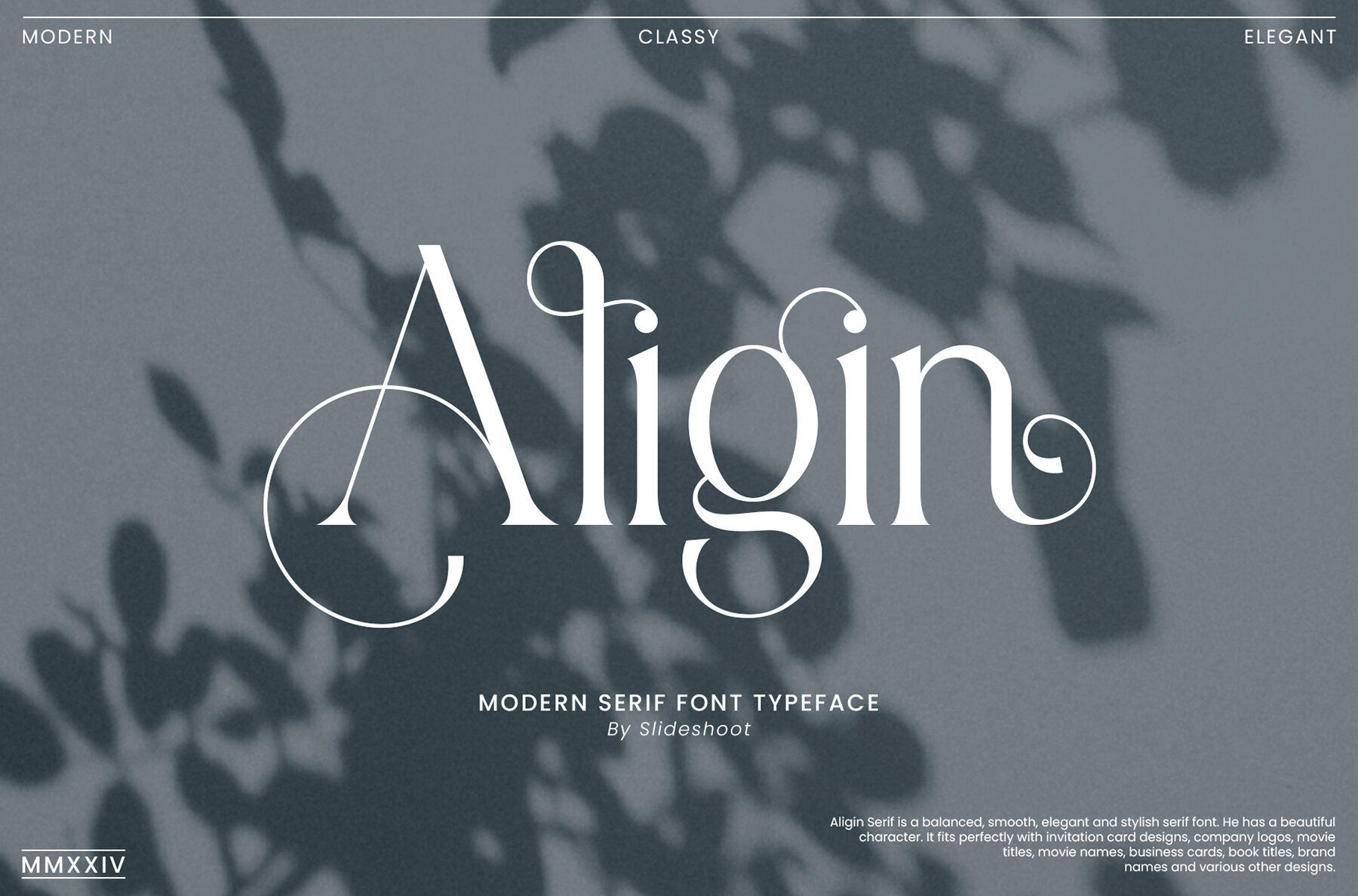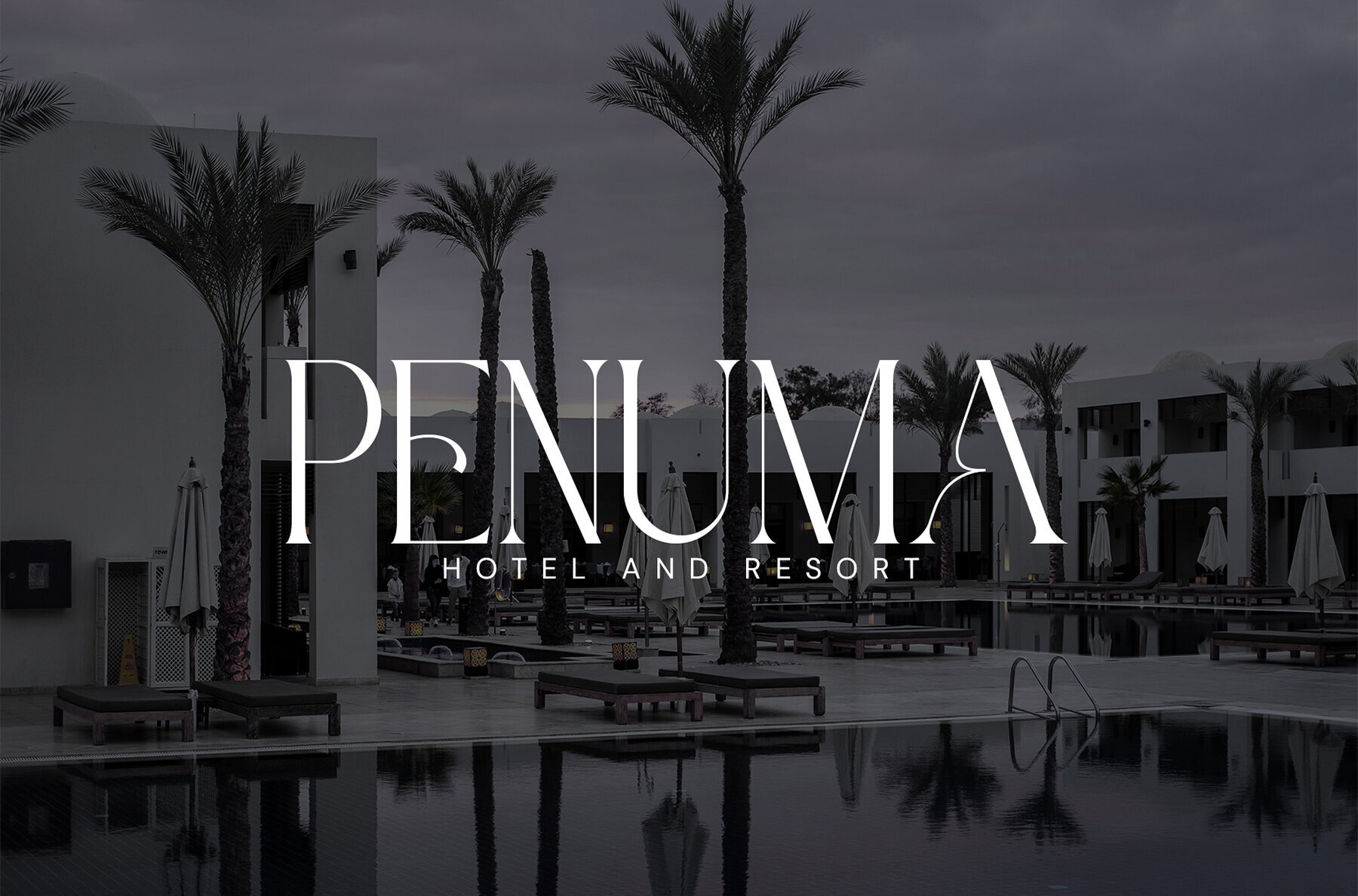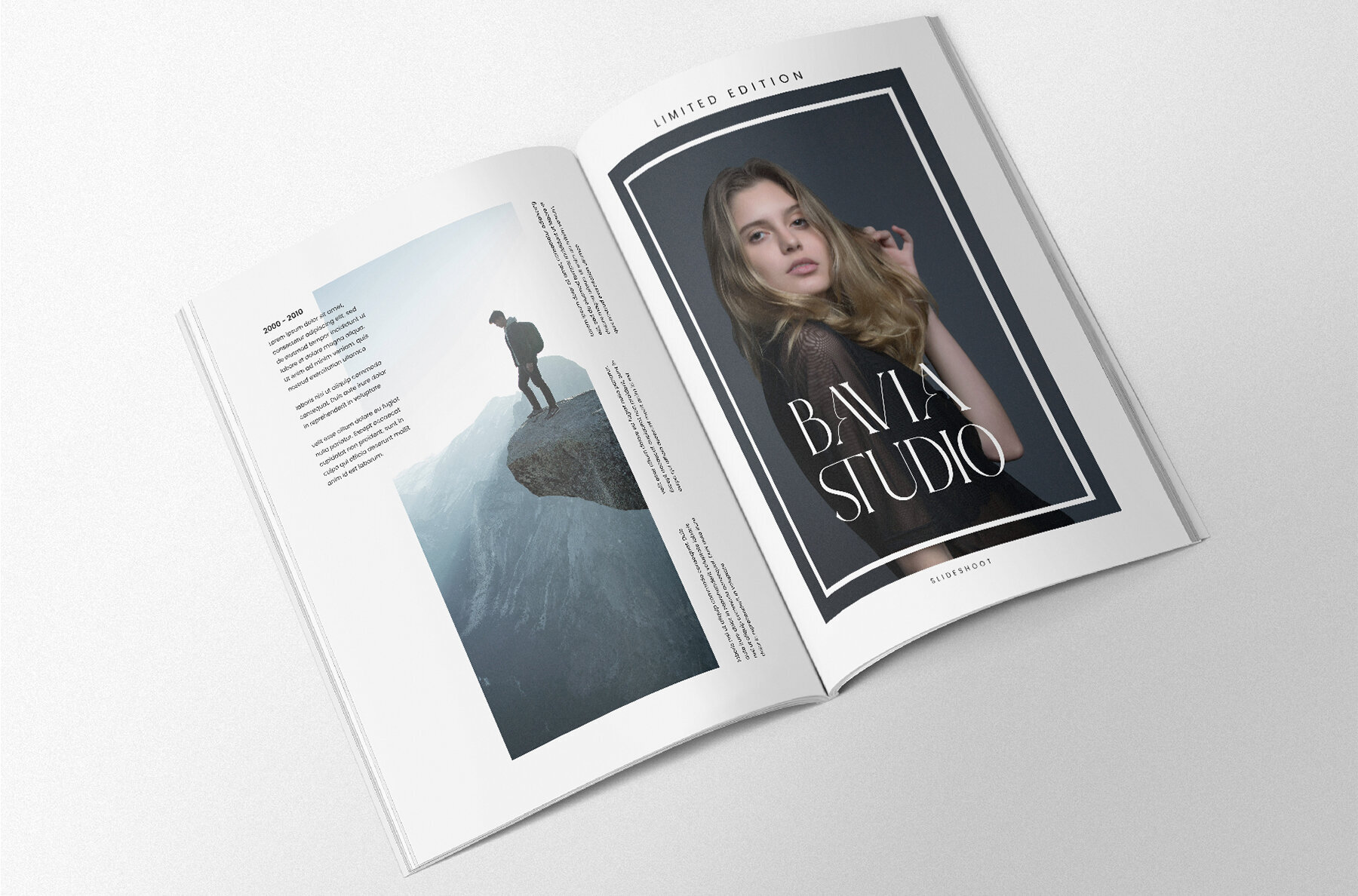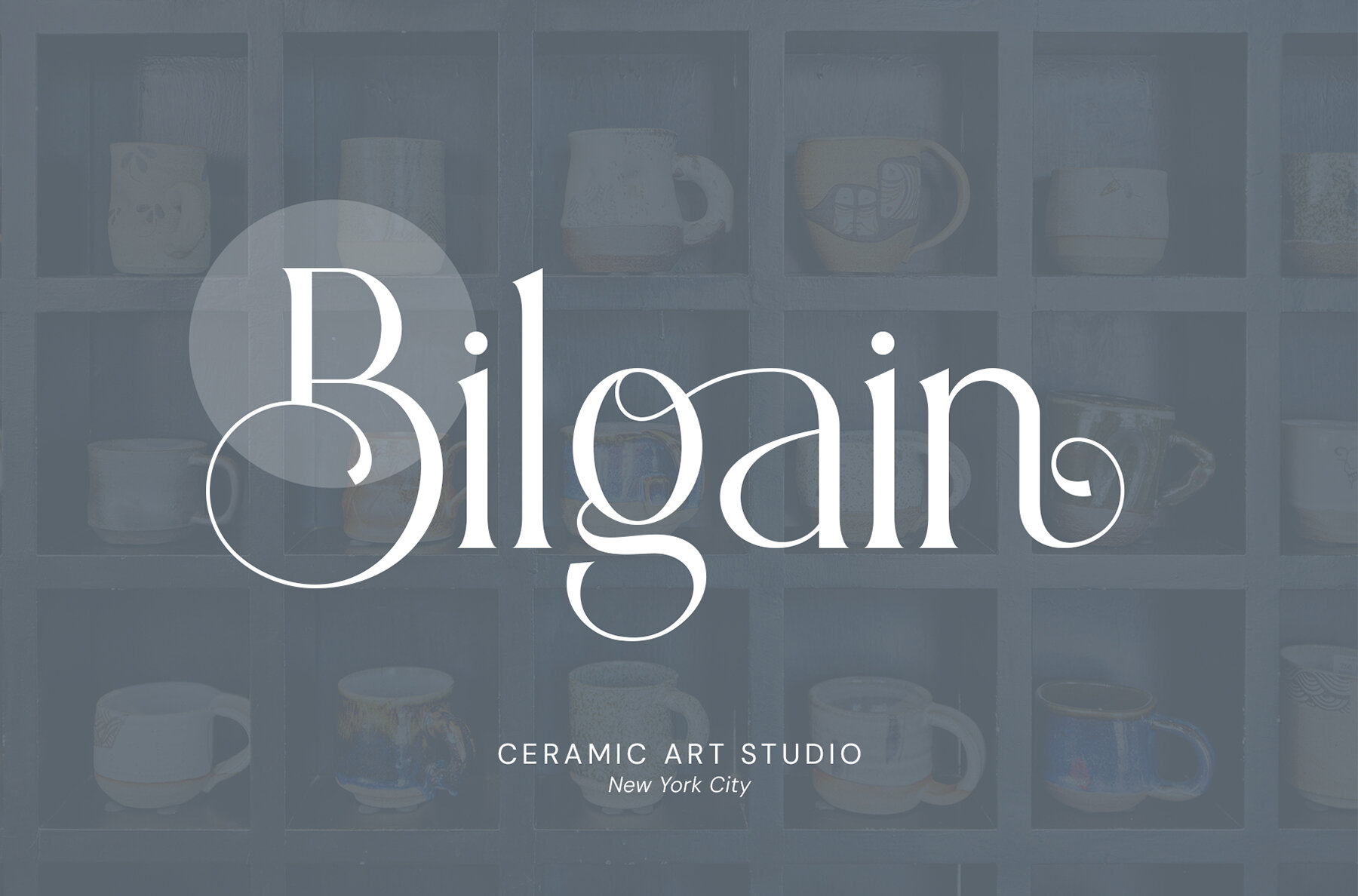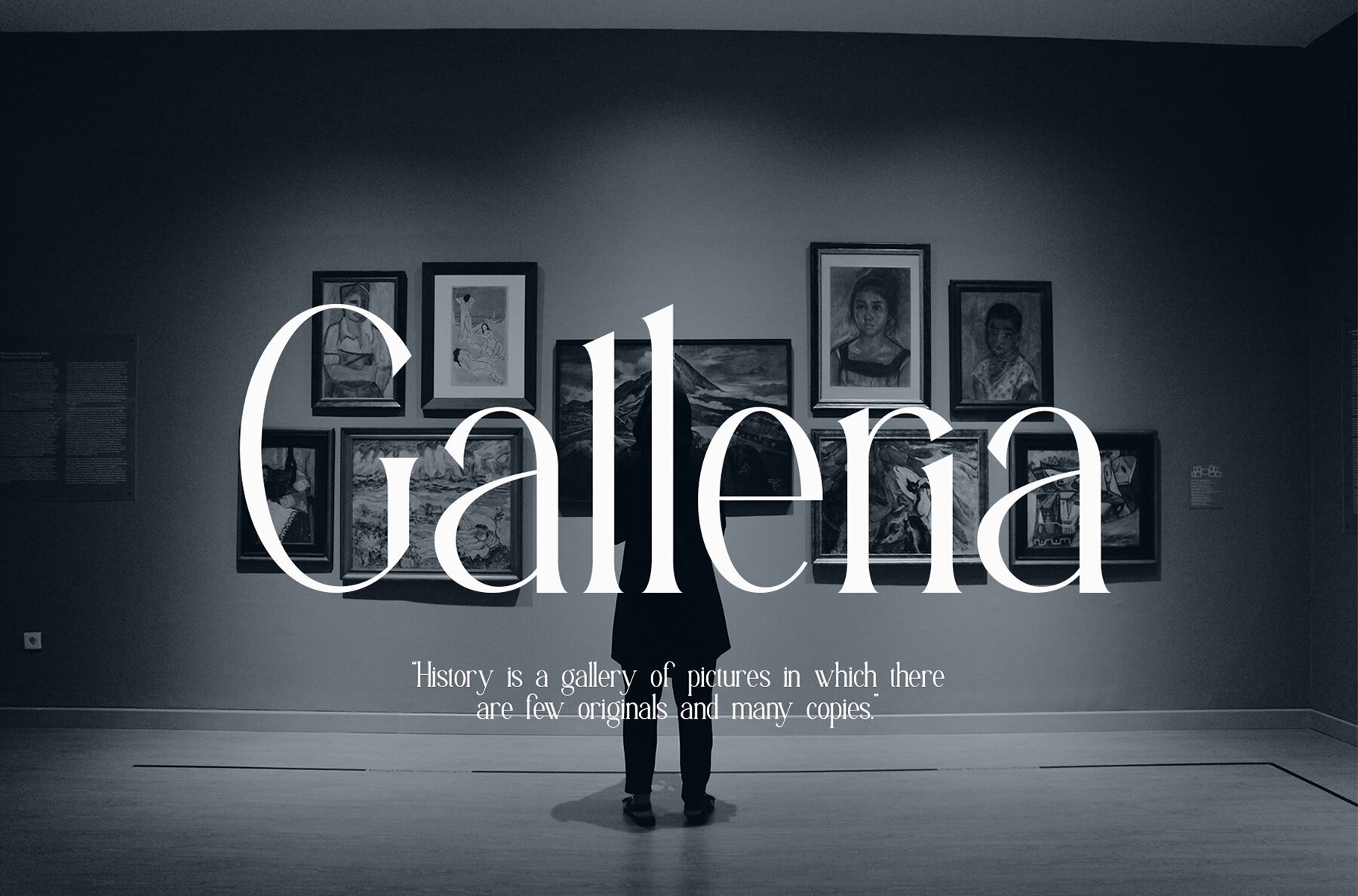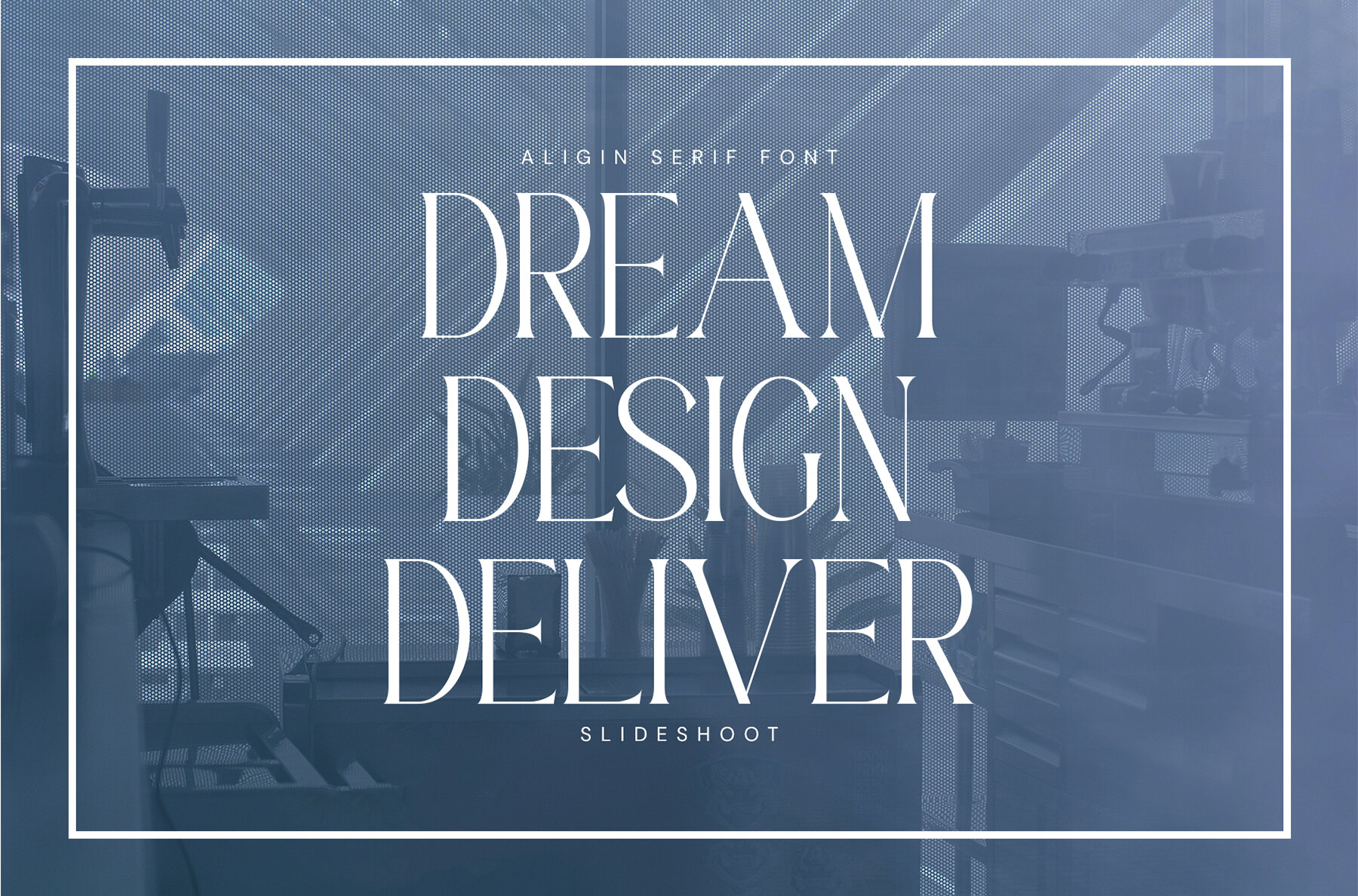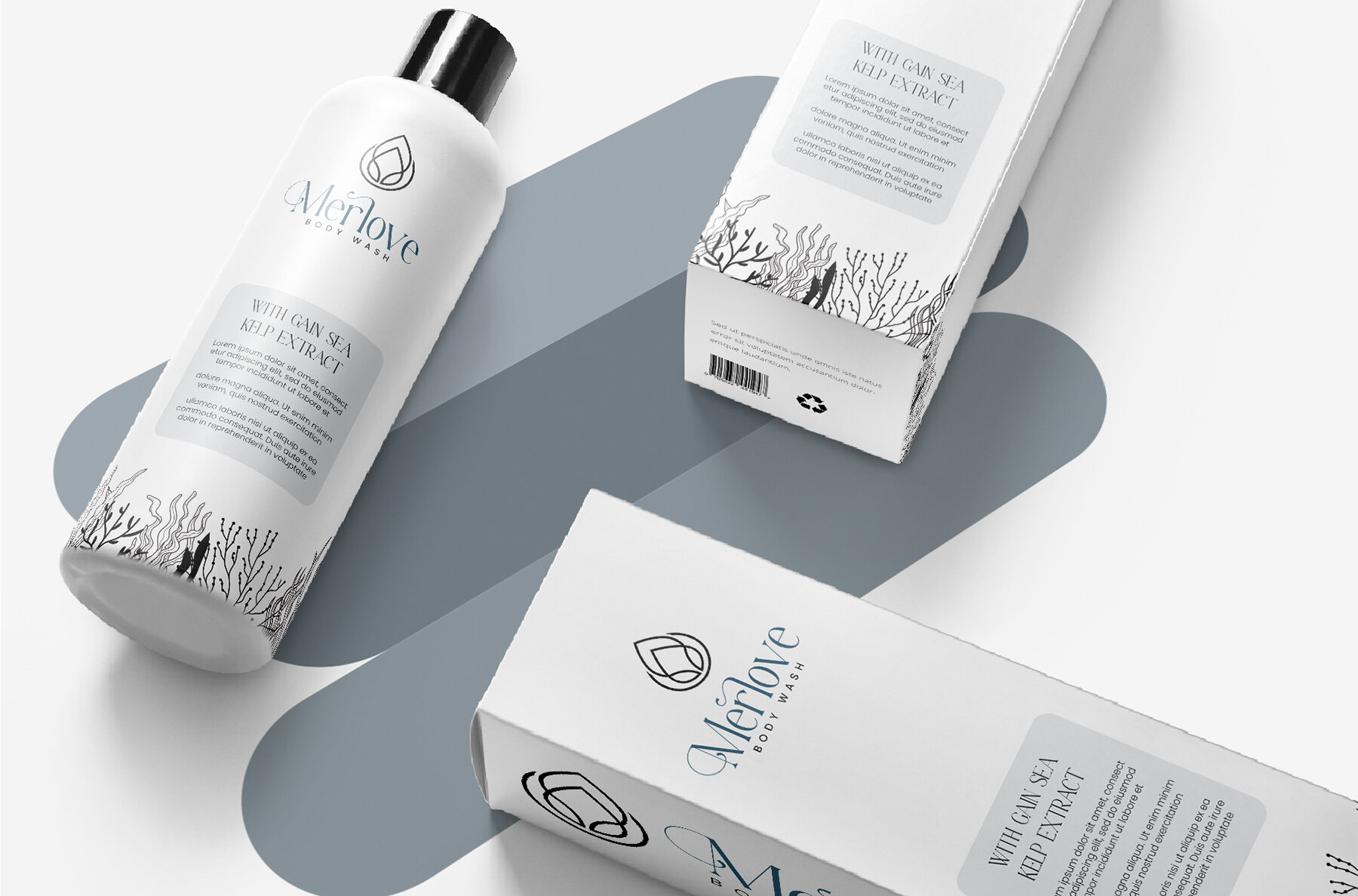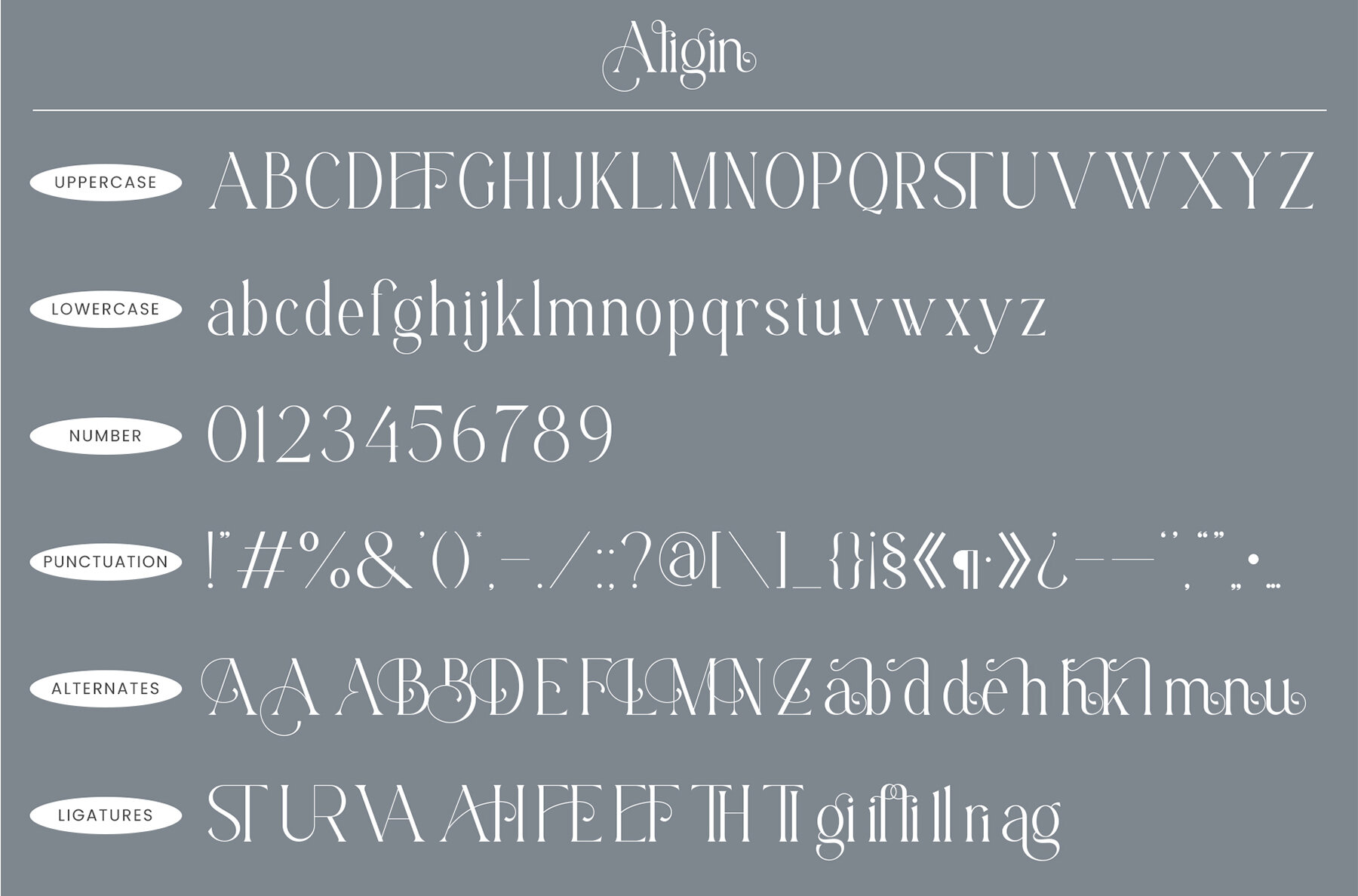
Aligin Font
Aligin Regular
Aligin Serif is a refined and stylish serif font, ideal for a broad range of designs including invitation cards, company logos, movie titles, business cards, book titles, and brand identities. Its elegant curves and smooth lines exude sophistication, making a statement in any project it adorns. The delicate balance of its characters introduces a touch of class and subtly enhances the readability and aesthetic quality of your design work.
This versatile serif font comes equipped with stylish alternations and ligatures, providing designers with the flexibility to create unique and compelling typographic compositions. Aligin Serif supports both uppercase and lowercase characters, as well as comprehensive numbering and punctuation, ensuring seamless integration into any layout. Compatible with both PC and Mac, Aligin Serif is designed for effortless installation and works smoothly with Adobe Illustrator, Adobe Photoshop, Adobe InDesign, and Microsoft Word, enhancing your creative workflow across various platforms.